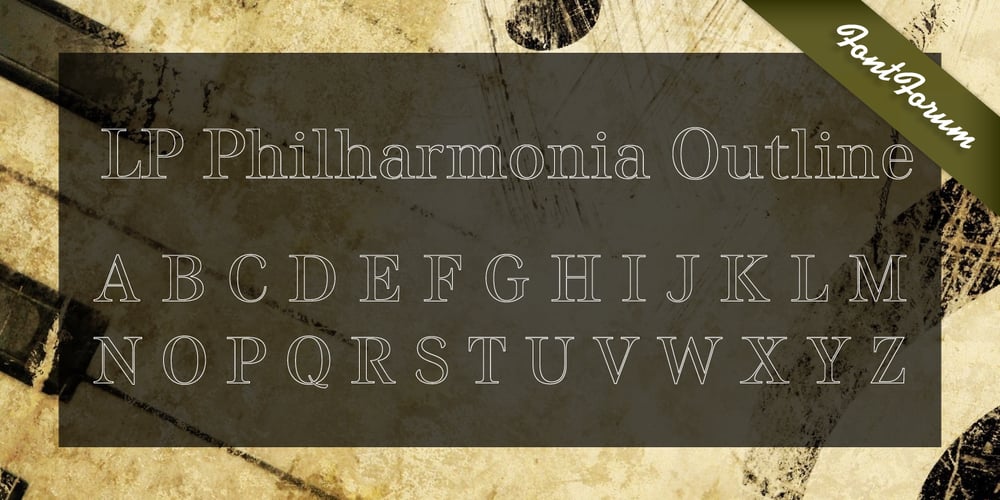
LP Philharmonia
LP Philharmonia font
LP Philharmonia Font Family was designed by Peter Langpeter, Peter Lanpeter and published by URW Type Foundry. LP Philharmonia contains 2 styles and family package options. Peter Schmidt, well-known designer from Hamburg, browsed in a fashion magazine on a return flight from the United States. At that time he was thinking about a logo for a philharmonic orchestra. In the magazine, he noticed some interesting typography. He removed the page from the magazine and sent it later to Peter Langpeter. That was the inspiration for the creation of the logo. Since Peter Langpeter really liked the classic aesthetics of the resulting letters, he developed a whole new alphabet of it. Initially, only capital letters. Now he has completed this exceptionally beautiful font.